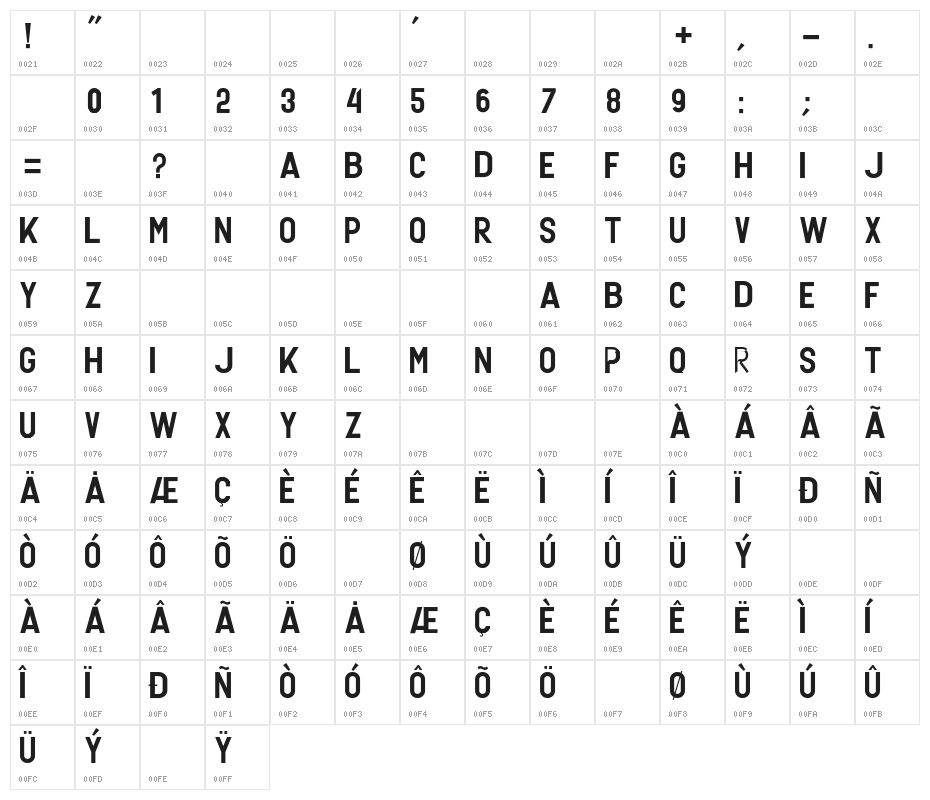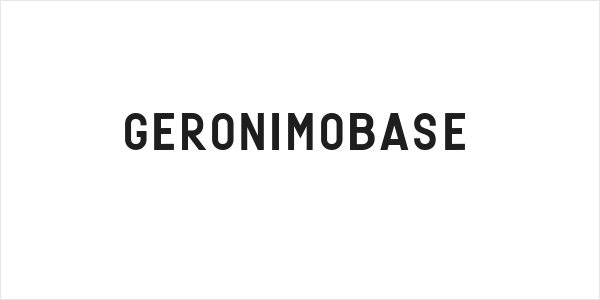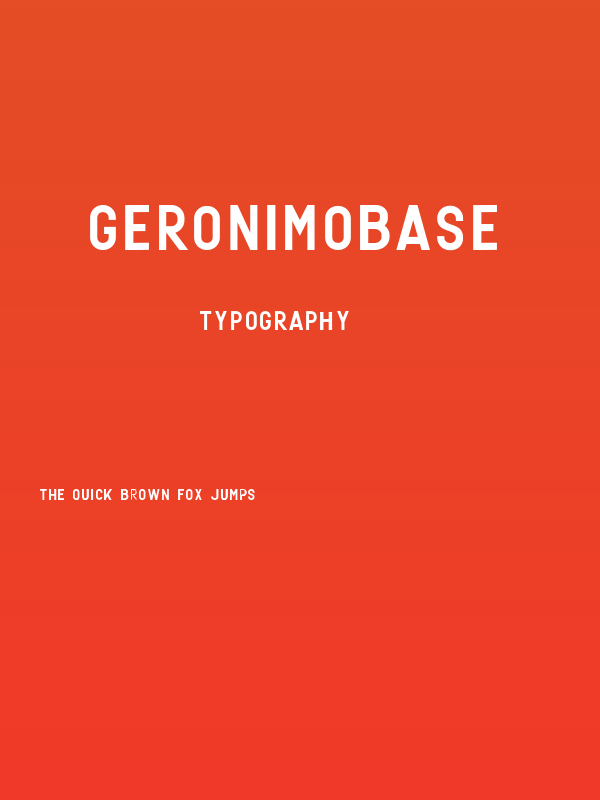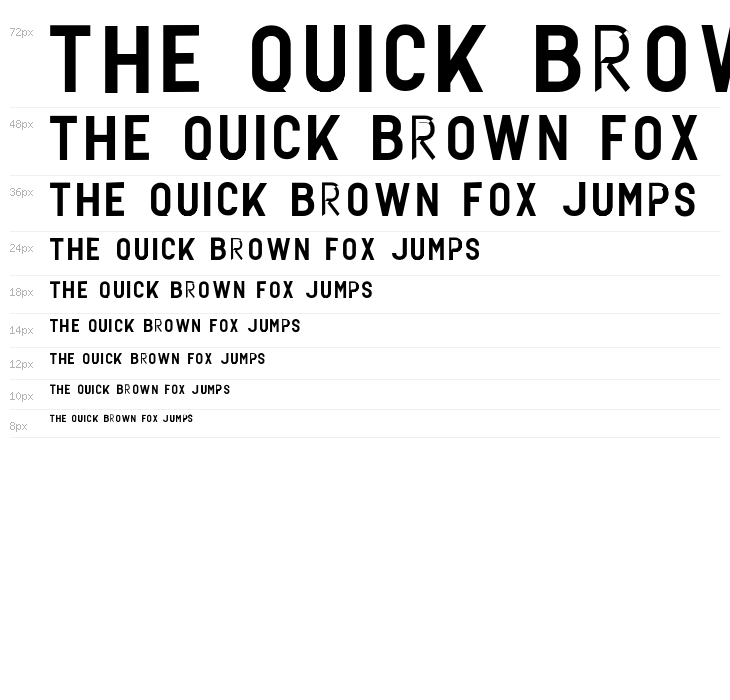
GERONIMOBASE Font
GERONIMOBASE Description
This font features a bold, geometric sans-serif style with a modern and clean appearance. The uppercase letters are uniform in height, providing a strong and cohesive look. The lowercase letters maintain a similar geometric structure, ensuring readability and consistency. The numerals are distinct and clear, matching the overall boldness of the alphabet. Special characters are designed to complement the primary character set, maintaining the font's modern aesthetic. The font's design is versatile, making it suitable for a variety of applications.
| Proposed Projects | Ideal for branding, headlines, posters, and digital media where a strong and modern presence is desired. |